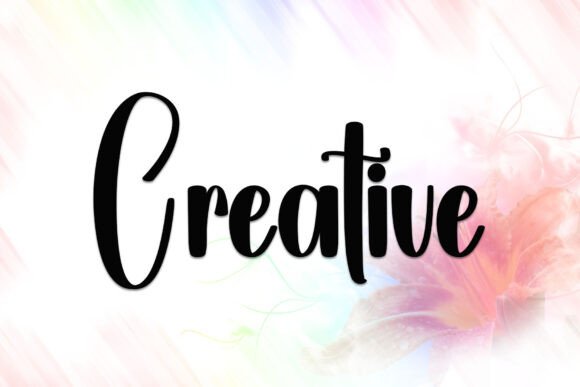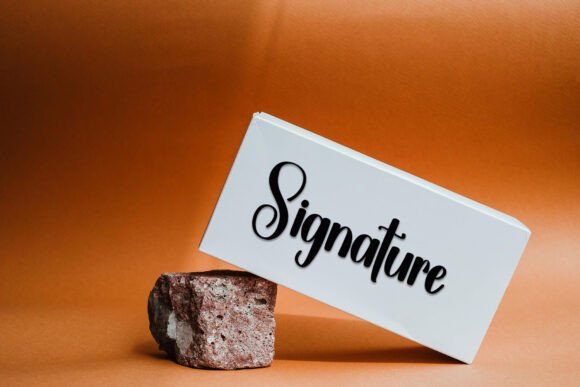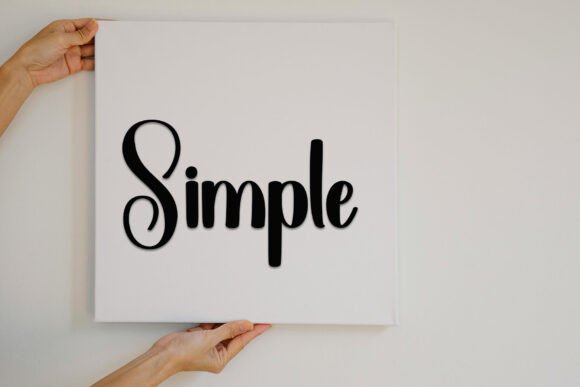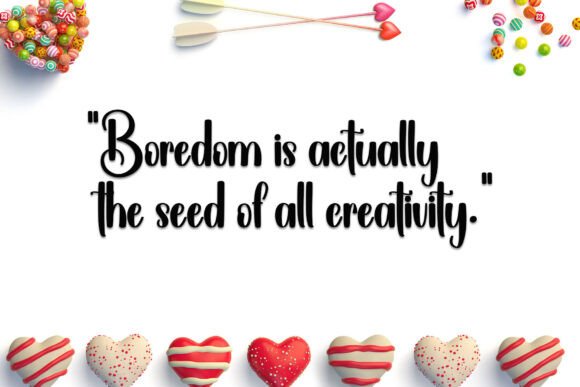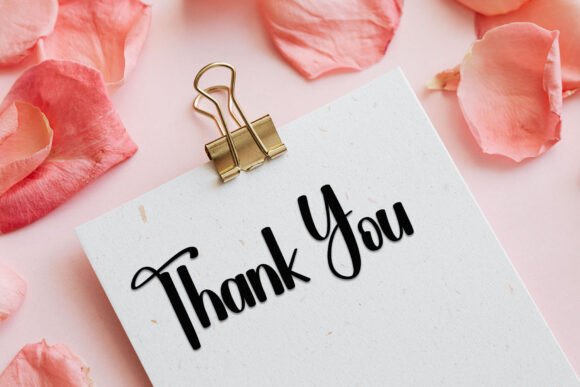
Diamond Cartoon Font: Add a Touch of Elegance and Whimsy to Your Designs
Are you looking for a font that can add a dash of elegance, romance, and playfulness to your designs? Look no further than the Diamond Cartoon Font! This sweet and cursive handwritten font is perfect for designers and crafters who want to create stunning visuals that exude joy and sophistication. In this article, we’ll dive into the world of Diamond Cartoon Font and explore its features, uses, and benefits.
What is Diamond Cartoon Font?
Diamond Cartoon Font is a beautiful, cursive handwritten font that is designed to add a touch of whimsy and romance to your designs. Its gentle and flowing curves make it perfect for creating elegant and sophisticated visuals that are sure to capture the attention of your audience. Whether you’re working on a branding project, designing a logo, or creating a wedding invitation, Diamond Cartoon Font is the perfect choice.
Features of Diamond Cartoon Font
Diamond Cartoon Font boasts a range of features that make it a versatile and practical choice for designers and crafters. Some of its key features include:
- Sweet and Cursive Handwritten Style: Diamond Cartoon Font features a beautiful, cursive handwritten style that is both elegant and playful.
- Gentle and Flowing Curves: The font’s gentle and flowing curves make it perfect for creating sophisticated and eye-catching visuals.
- Versatile and Adaptable: Diamond Cartoon Font can be used on a wide range of design projects, from branding and logos to wedding invitations and greeting cards.
- Easy to Read and Understand: Despite its elegant and cursive style, Diamond Cartoon Font is easy to read and understand, making it perfect for body text and headlines.
Uses of Diamond Cartoon Font
Diamond Cartoon Font is a versatile font that can be used on a wide range of design projects. Here are some of the most popular uses of this beautiful font:
- Branding and Logos: Diamond Cartoon Font is perfect for creating elegant and sophisticated brand identities and logos.
- Wedding Invitations and Things: The font’s romantic and whimsical style makes it perfect for wedding invitations, save-the-date cards, and other wedding-related designs.
- Greeting Cards and Stationery: Diamond Cartoon Font is a great choice for creating beautiful and elegant greeting cards, stationery, and other paper crafts.
- Fashion and Lookbook: The font’s elegant and sophisticated style makes it perfect for fashion brands, lookbooks, and marketing promotions.
Benefits of Using Diamond Cartoon Font
There are many benefits to using Diamond Cartoon Font in your designs. Here are some of the most significant advantages of this beautiful font:
- Unique and Eye-Catching: Diamond Cartoon Font is a unique and eye-catching font that can help your designs stand out from the crowd.
- Elegant and Sophisticated: The font’s elegant and sophisticated style makes it perfect for creating high-end designs that exude luxury and refinement.
- Versatile and Adaptable: Diamond Cartoon Font can be used on a wide range of design projects, making it a great addition to any designer’s toolkit.
- Easy to Use and Customize: The font is easy to use and customize, making it perfect for designers of all skill levels.
In conclusion, Diamond Cartoon Font is a beautiful and versatile font that can add a touch of elegance, romance, and whimsy to your designs. Its sweet and cursive handwritten style, gentle and flowing curves, and versatile and adaptable nature make it perfect for a wide range of design projects. Whether you’re a designer, crafter, or DIY enthusiast, Diamond Cartoon Font is a great choice for creating stunning visuals that are sure to capture the attention of your audience.